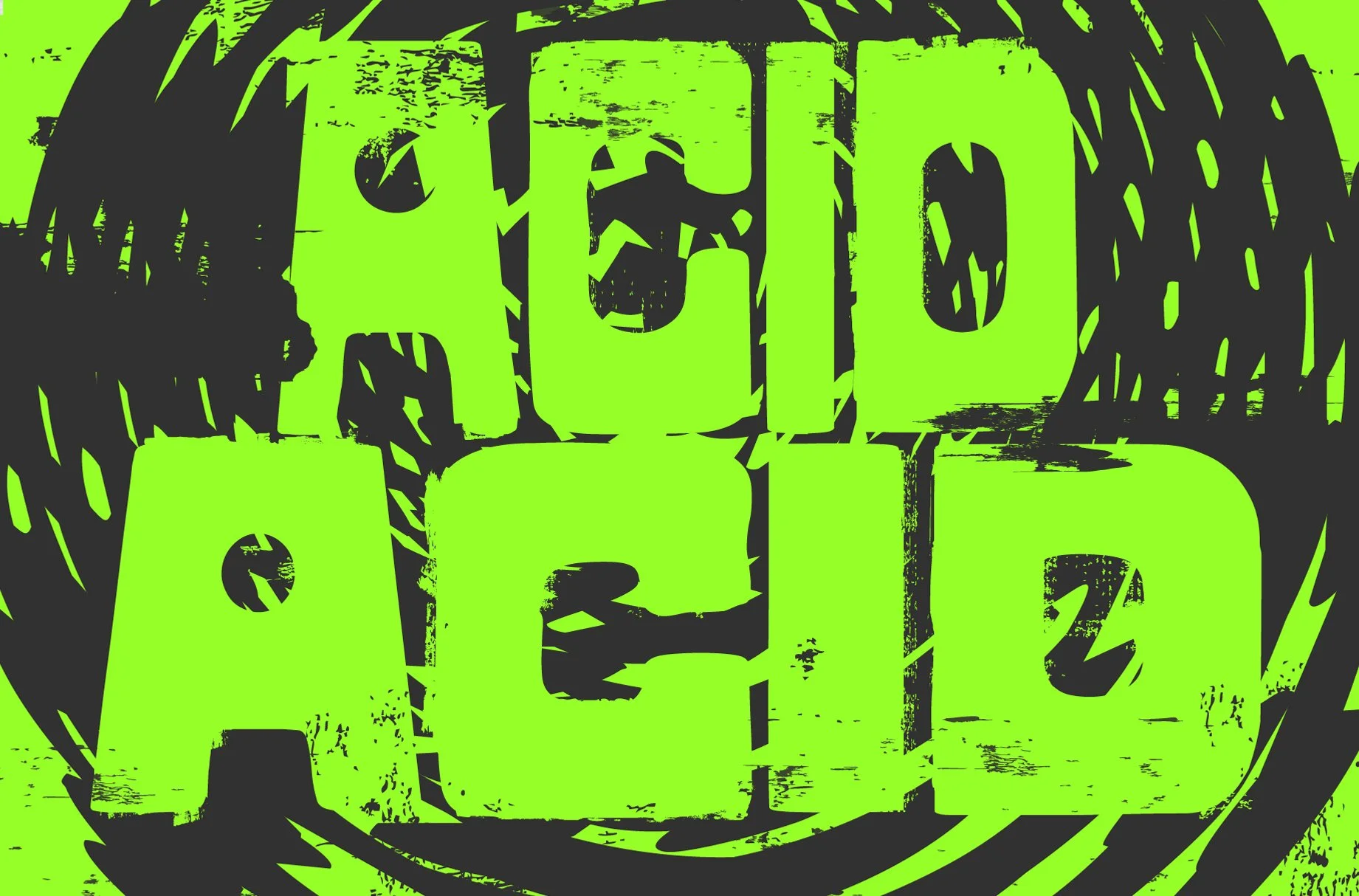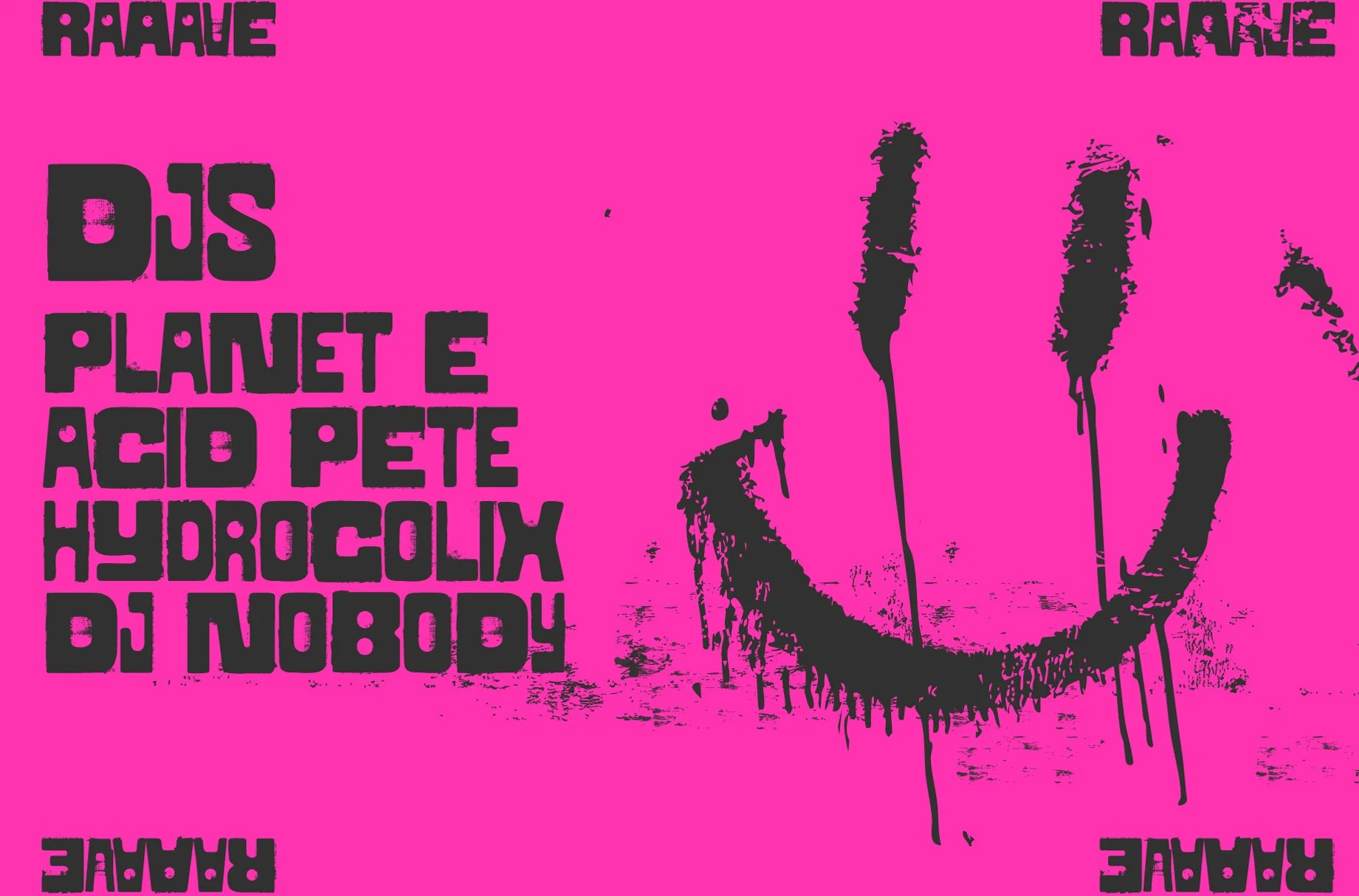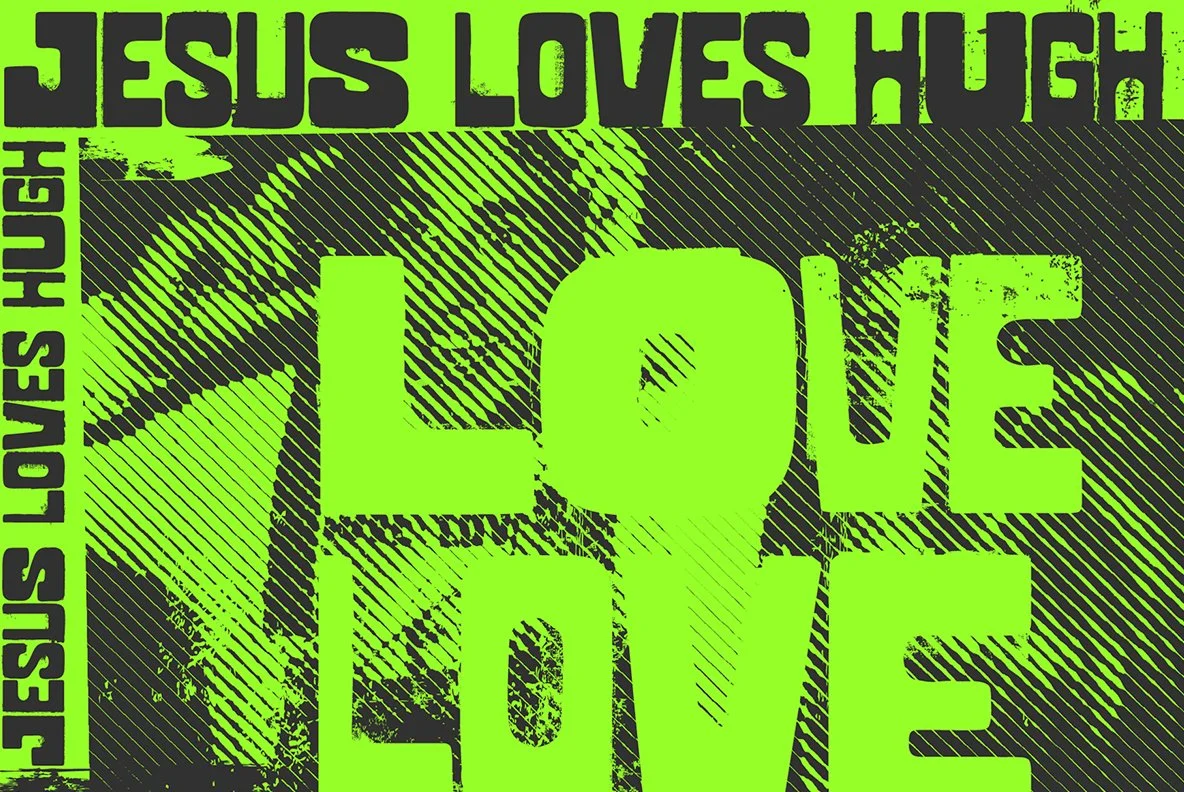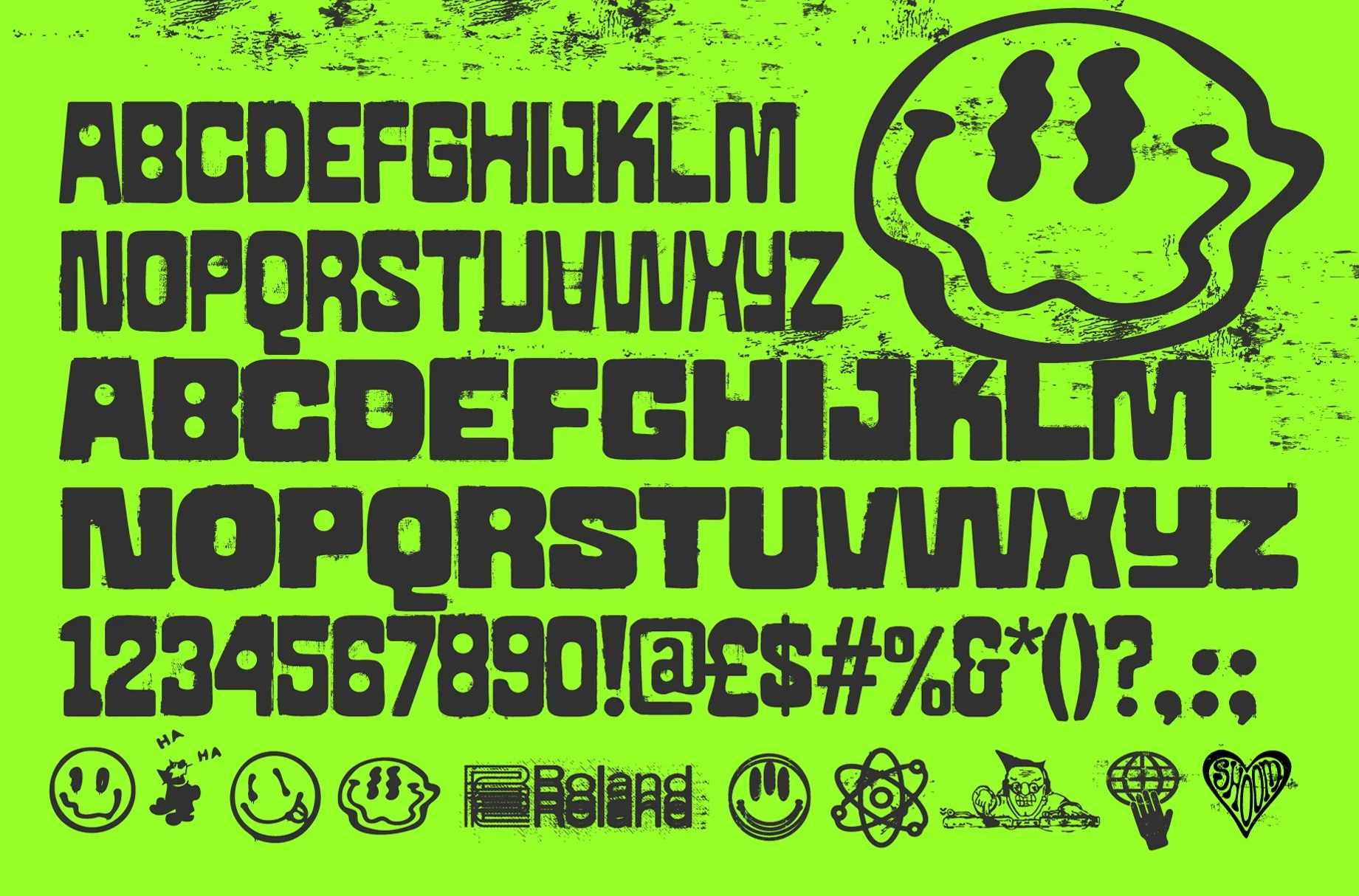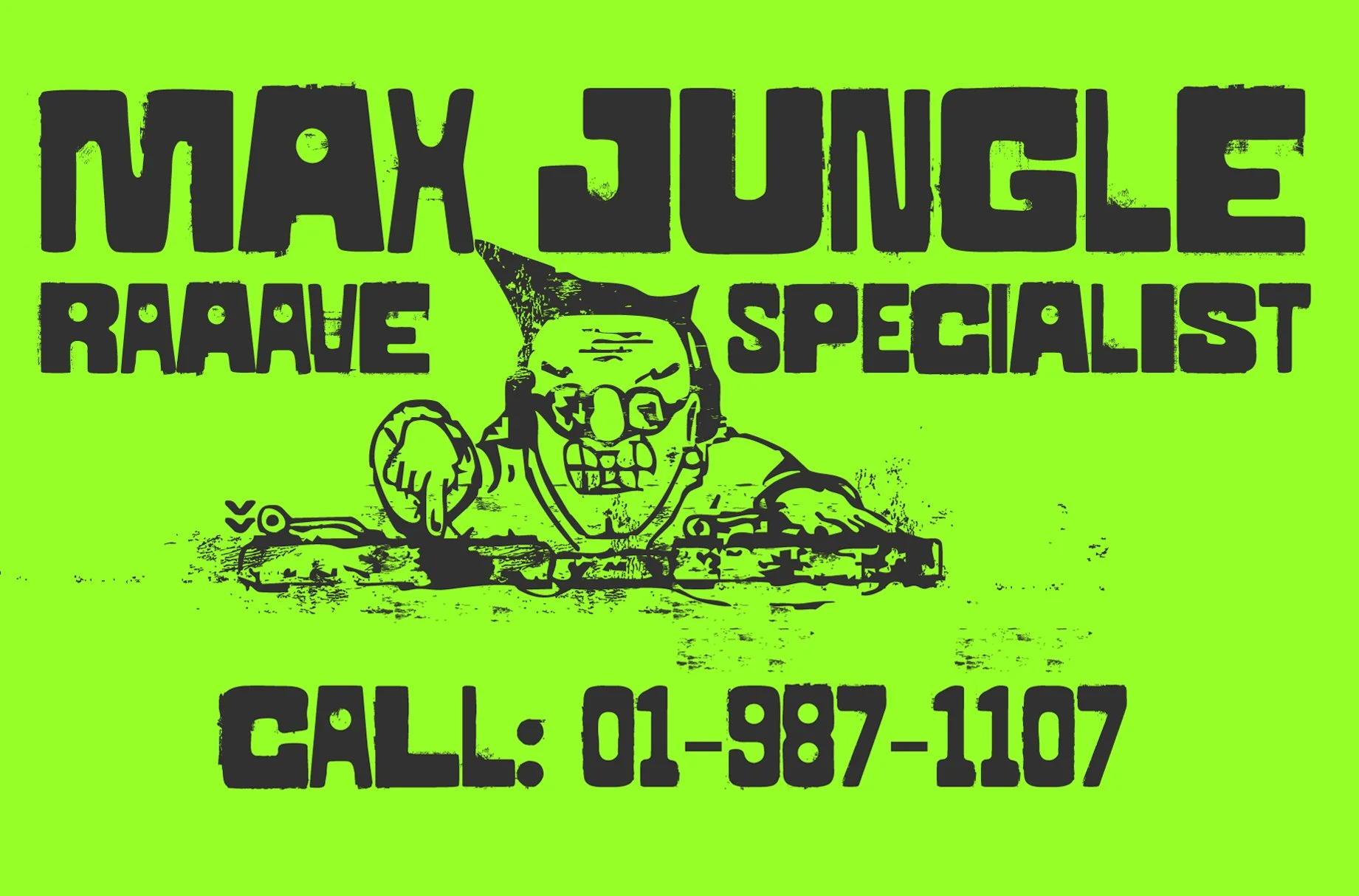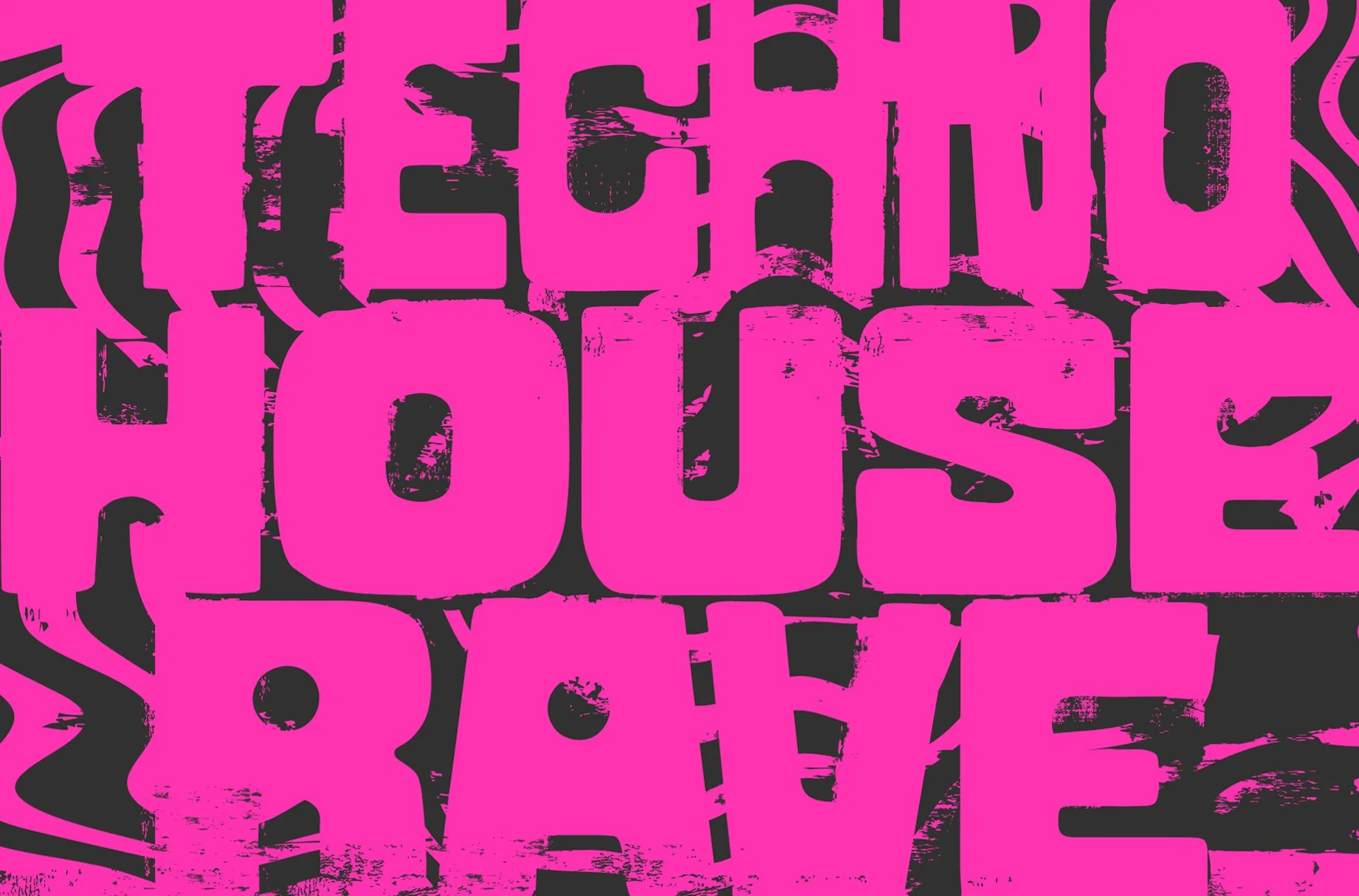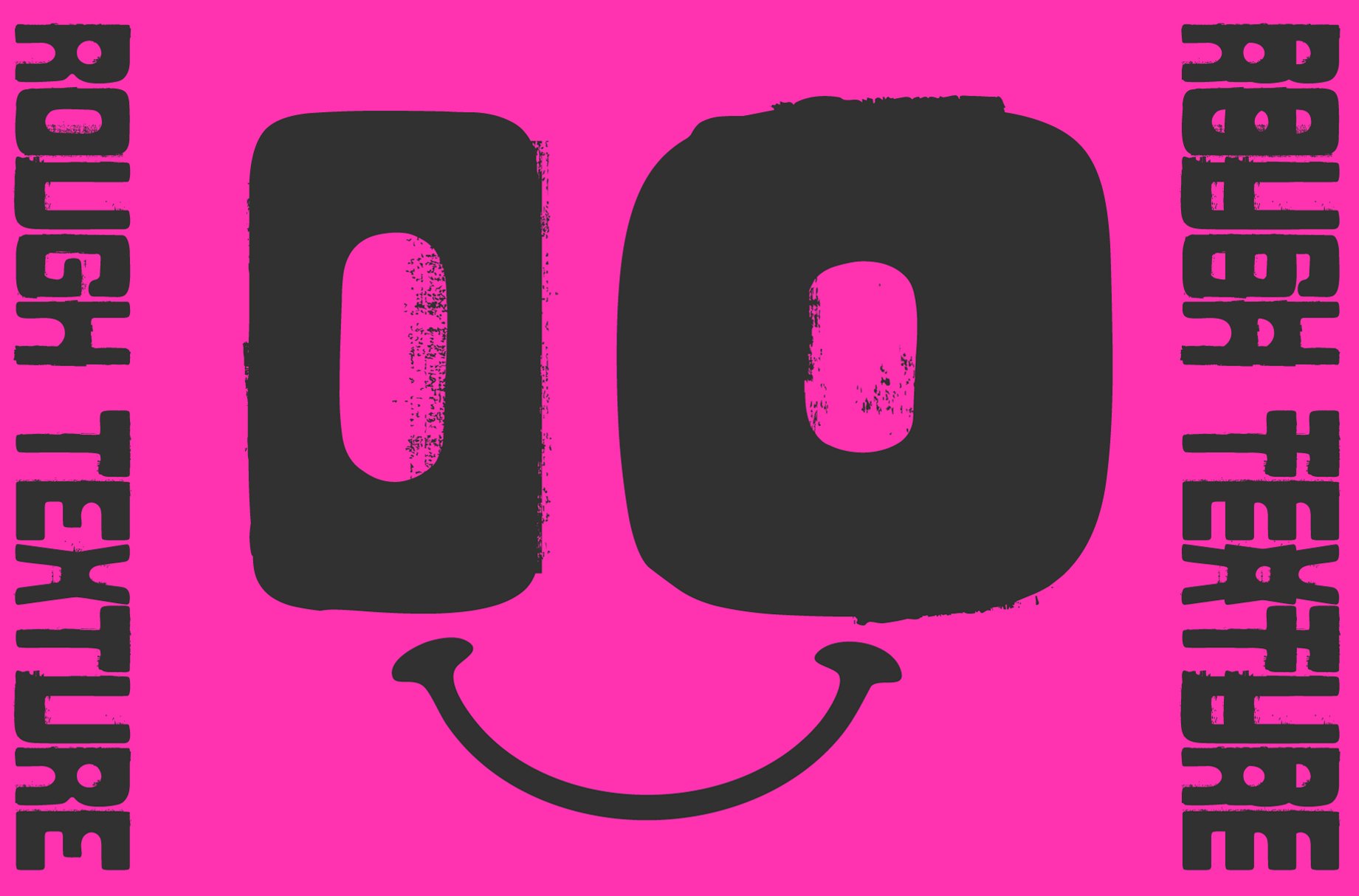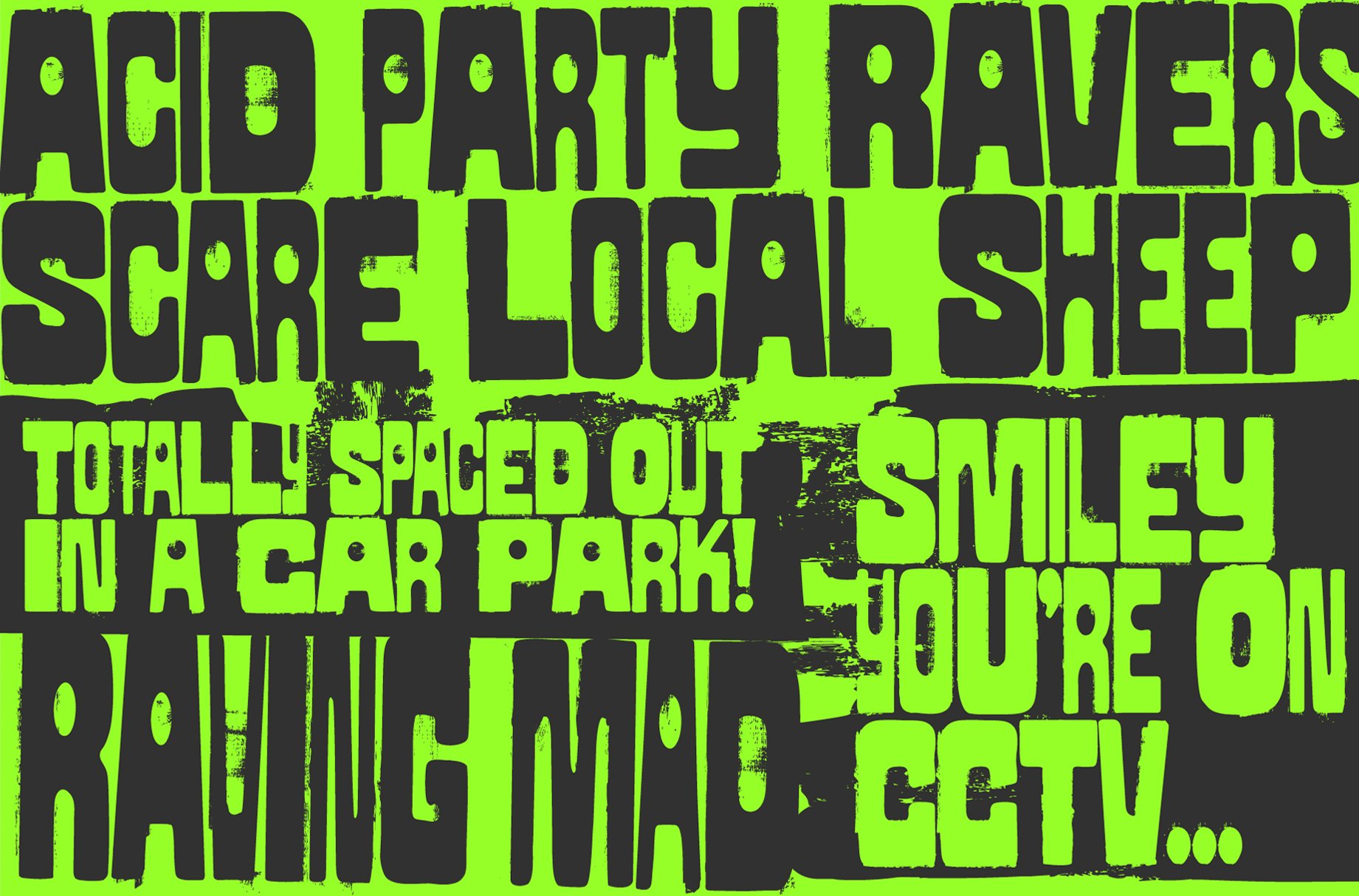
Raaave: Distressed Vintage Flyer Typeface
Raaave is a typeface that channels the nostalgic vibe of distressed, vintage flyers. With its rough print texture and photocopied appearance, it captures the essence of a bold and gritty aesthetic. Raaave evokes memories from the Summer of Love to the pulse of grimy, sweaty basements. Create a unique retro feel by mixing bold and regular styles for added versatility.